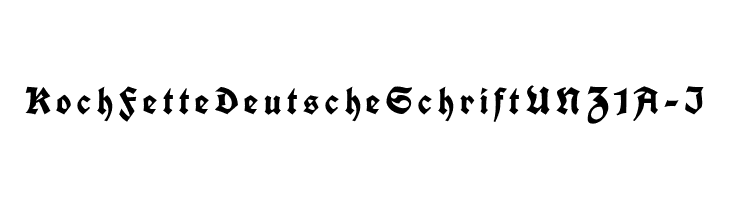
A bold, ornate blackletter typeface with intricate Gothic styling.
A bold, traditional blackletter font with sharp, angular lines and dramatic strokes.